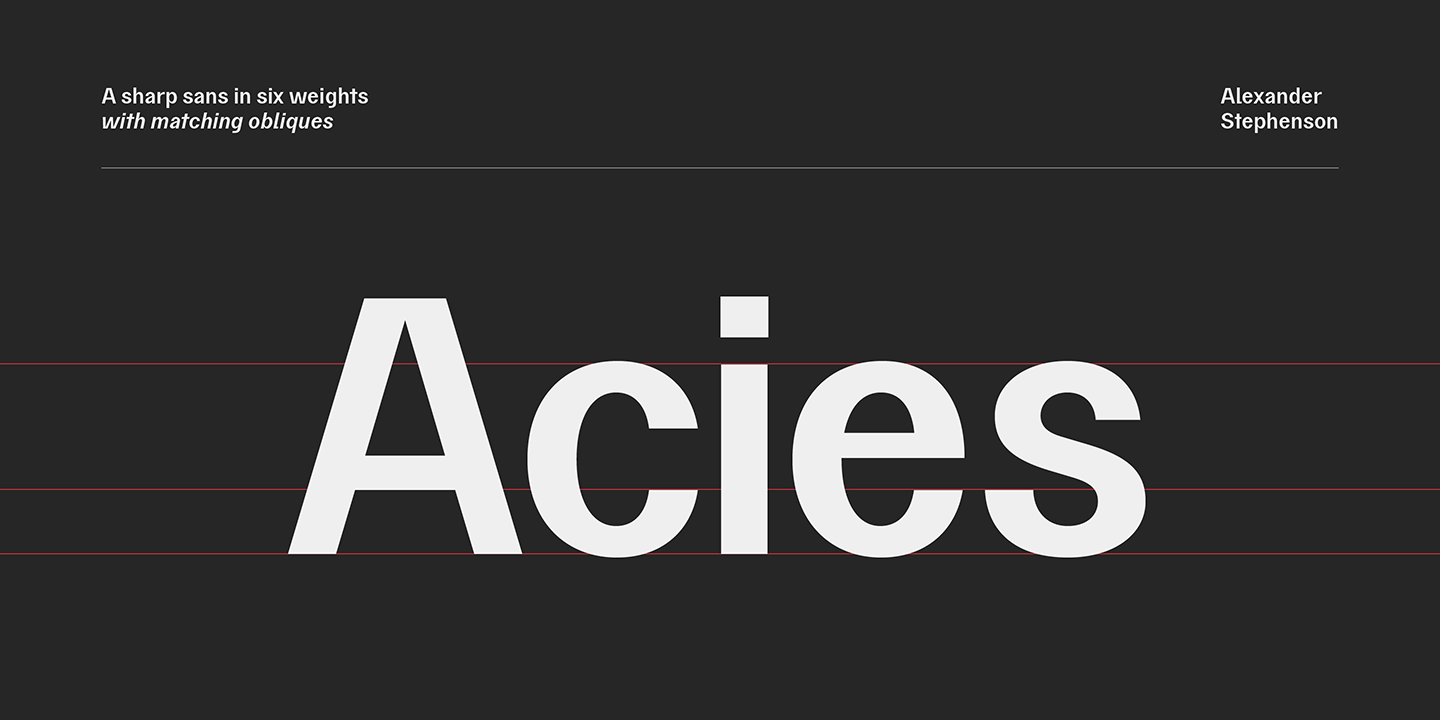
Acies Font is ideal for military defense contractors, tactical equipment manufacturers, strategic consulting firms, competitive sports teams, precision engineering companies, sharp-edge tool retailers, and professional combat training academies. This cutting-edge typeface embodies tactical precision and strategic sharpness, bringing military-grade accuracy and competitive excellence to any design project celebrating precision performance and strategic advantage.
What makes Acies Font exciting is its powerful combination of tactical precision and competitive sharpness that perfectly captures the essence of strategic excellence and cutting-edge performance. The font features sharp letterforms with blade-inspired angles and tactical character details that evoke both military precision and competitive athletic performance. Its commanding character inspires confidence while maintaining excellent readability for both tactical documentation and competitive sports applications.
The Acies Font family includes multiple weights with complementary condensed variations and tactical ornamental elements. The character set features strategic ligatures, military symbols, competitive alternates, and precision decorative accents that enhance the font's authoritative appeal. Advanced OpenType features provide creative flexibility for international defense contractors and multilingual competitive sports applications.
Whether you're designing tactical equipment brands, creating military training materials, or developing competitive sports content, Acies Font Free Download provides exceptional precision and versatility. This sharp typeface transforms ordinary text into powerful strategic experiences that communicate tactical excellence while establishing respected brand recognition in competitive defense, sports, and precision engineering marketplaces.